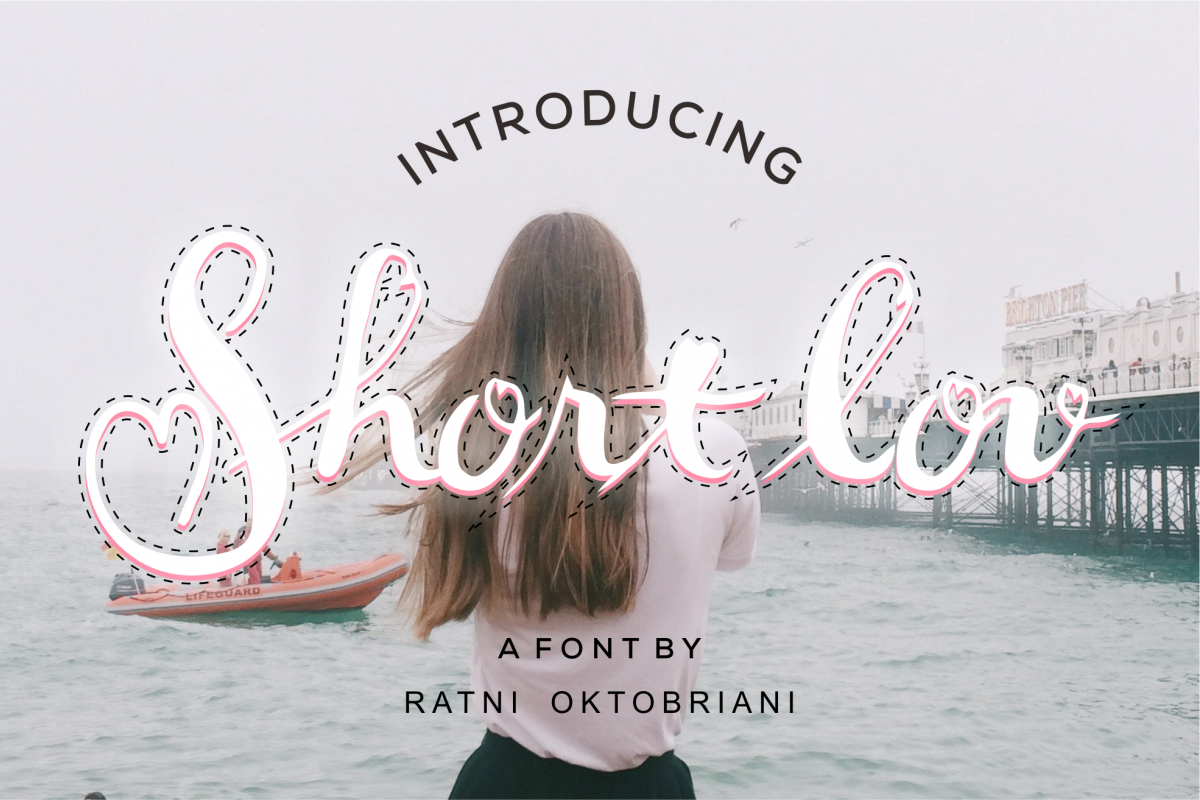
Short Lov - A Script Font
Short Lov - A Script Font is a script font made by a Ratni Okt.
It flows freely, with love, fashionable and friendly. Short lov is
perfect for fashion, e-commerce brands, trendy blogs, or any business
that wants to look classy and chic!